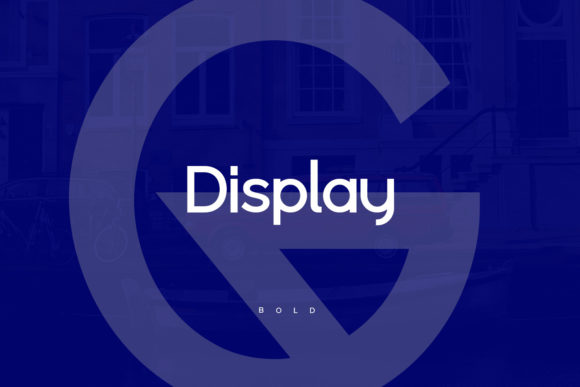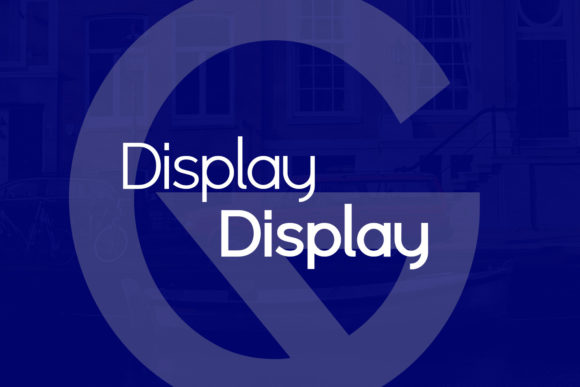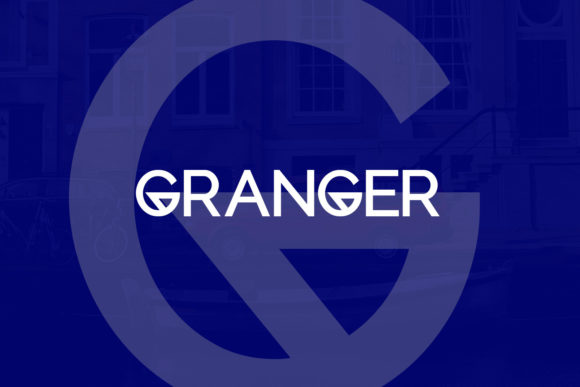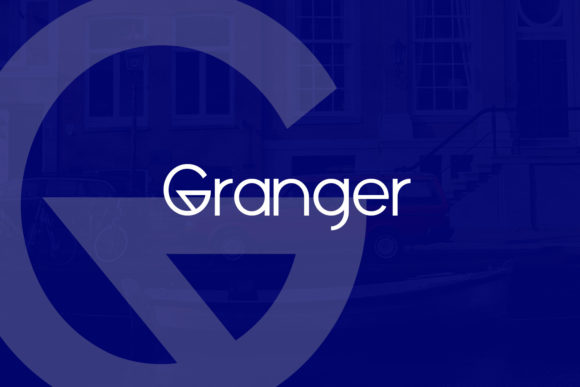
Introducing Granger Font: The Perfect Choice for Modern and Classic Designs
In the world of typography, fonts play a crucial role in making or breaking a design. A well-chosen font can elevate your creative project, making it stand out from the crowd. If you’re a designer, craftsperson, or simply someone who appreciates beautiful typography, you’re in luck! We’re excited to introduce Granger Font, a modern and minimal display font that’s perfect for a wide range of creative applications.
What is Granger Font?
Granger Font is a sleek and sophisticated display font that’s designed to make a statement. Its clean lines, minimalist aesthetic, and exceptional legibility make it an excellent choice for creative and classic designs. Whether you’re working on a logo, branding project, headline, or marketing graphics, Granger Font is the perfect companion to help you achieve your design goals.
Key Features of Granger Font
- Modern and Minimal Design: Granger Font boasts a contemporary and minimalist design that’s perfect for designers who appreciate simplicity and elegance.
- Exceptional Legibility: The font’s clear and clean lines ensure that it’s highly legible, even at smaller sizes.
- Versatile: Granger Font is suitable for a wide range of creative applications, from logos and branding to headlines and marketing graphics.
Use Cases for Granger Font
Granger Font is an incredibly versatile font that can be used in various creative projects. Here are some use cases to get you started:
- Logos and Branding: Create a lasting impression with a custom logo or brand identity that incorporates Granger Font.
- Headlines and Titles: Use Granger Font to craft attention-grabbing headlines and titles for your blog posts, articles, or marketing materials.
- Marketing Graphics: Elevate your marketing graphics, such as brochures, flyers, or social media graphics, with the elegant and modern look of Granger Font.
- Packaging Design: Add a touch of sophistication to your product packaging with Granger Font.
Why Choose Granger Font?
With so many fonts available, why choose Granger Font? Here are a few compelling reasons:
- Unique and Modern Design: Granger Font offers a fresh and modern take on traditional typography.
- High-Quality and Professional: The font is designed with high-quality and professional use in mind, ensuring that it meets the demands of designers and craftspersons.
- Easy to Read and Understand: Granger Font is highly legible, making it easy for your audience to read and understand your message.
| Font Name | Granger Font |
| Author | Design Stag |
Granger Font is an exceptional modern and minimal display font that’s perfect for creative and classic designs. Its versatility, legibility, and elegant design make it an excellent choice for designers, craftspersons, and anyone looking to elevate their typography. Whether you’re working on a logo, branding project, or marketing graphics, Granger Font is sure to impress. So why wait? Download Granger Font today and take your designs to the next level!